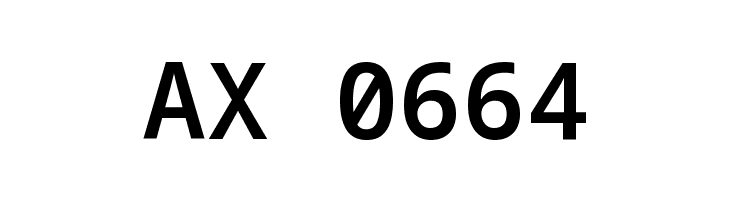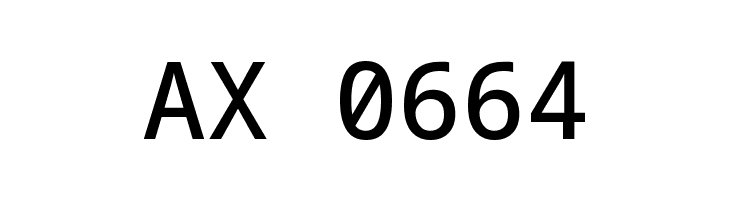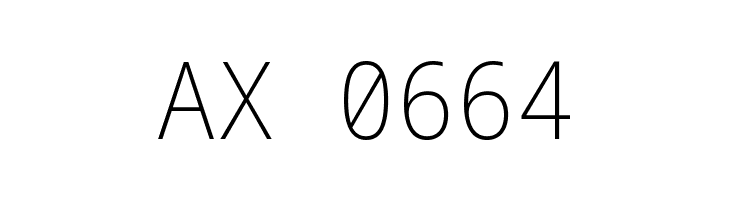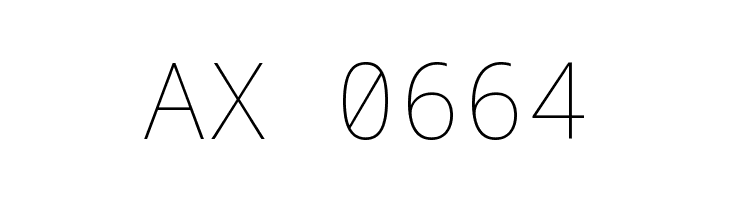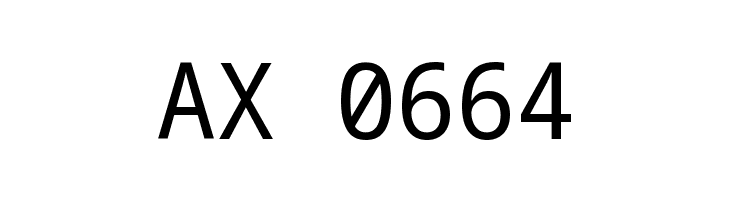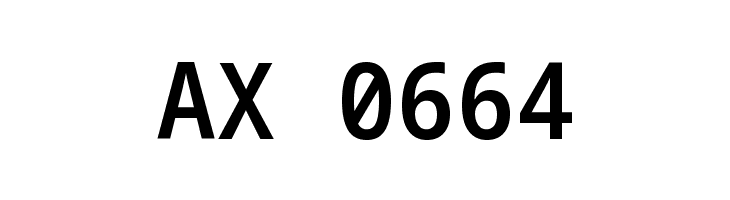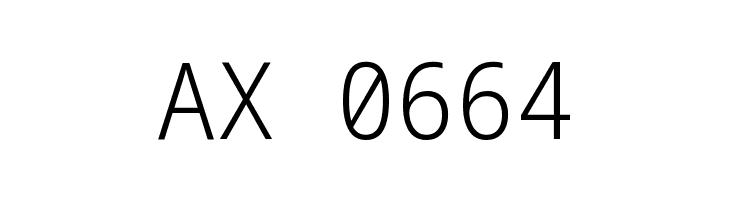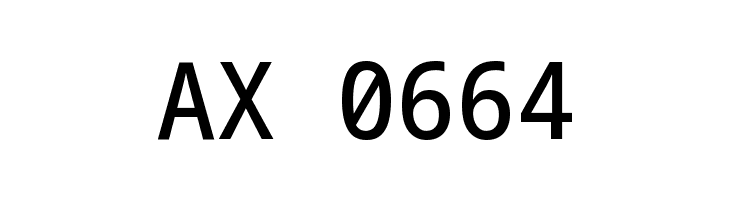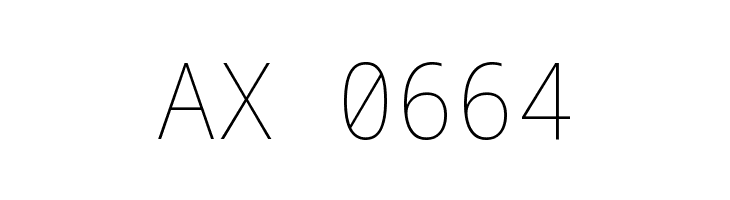
A clean, monospaced sans-serif font ideal for coding and data presentation.
A monospaced sans-serif font with uniform character width, ideal for coding and data alignment.
A clean, monospaced sans-serif font with a semi-condensed width, ideal for coding.
A bold, monospaced font with a semi-condensed width and strong visual impact.
A bold, semi-condensed monospaced font with a clean and modern design.
A monospaced, semi-condensed, extra bold sans-serif font with a modern and clean design.
A clean, monospaced font with a minimalist design and semi-condensed width.
A monospaced, semi-condensed, light sans-serif font with a clean and modern look.
A modern, monospaced sans-serif font with a semi-condensed, medium weight design.
A monospaced sans-serif font with semi-condensed, semi-bold style for clarity and modern appeal.
A modern, thin, monospaced font with a semi-condensed width.
A clean, monospaced font with thin strokes and a minimalist design.
A bold, modern sans-serif font designed for the Myanmar script with excellent readability.
A bold, condensed font with a modern and clear design.
A clean, modern, and condensed font with medium weight and consistent strokes.